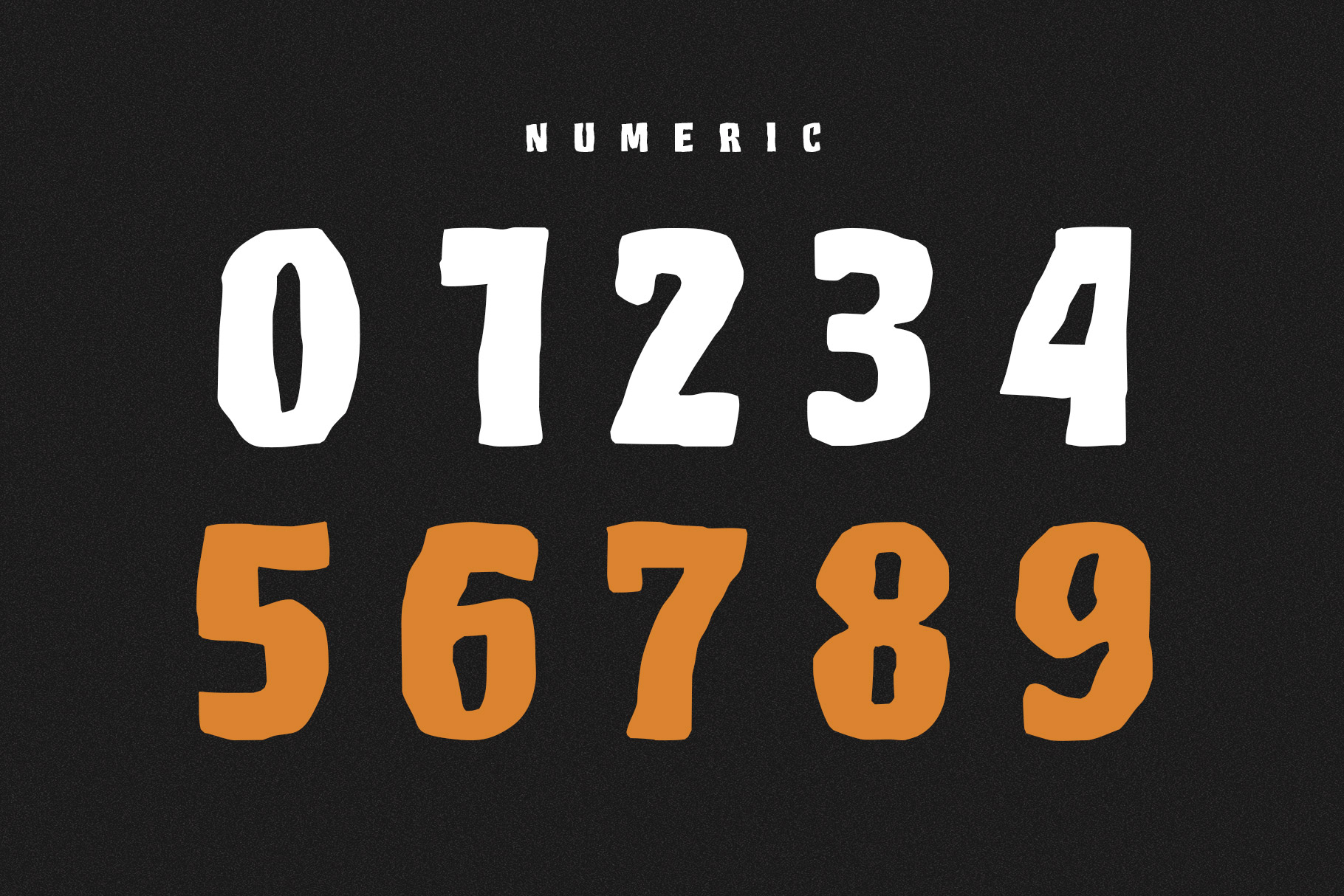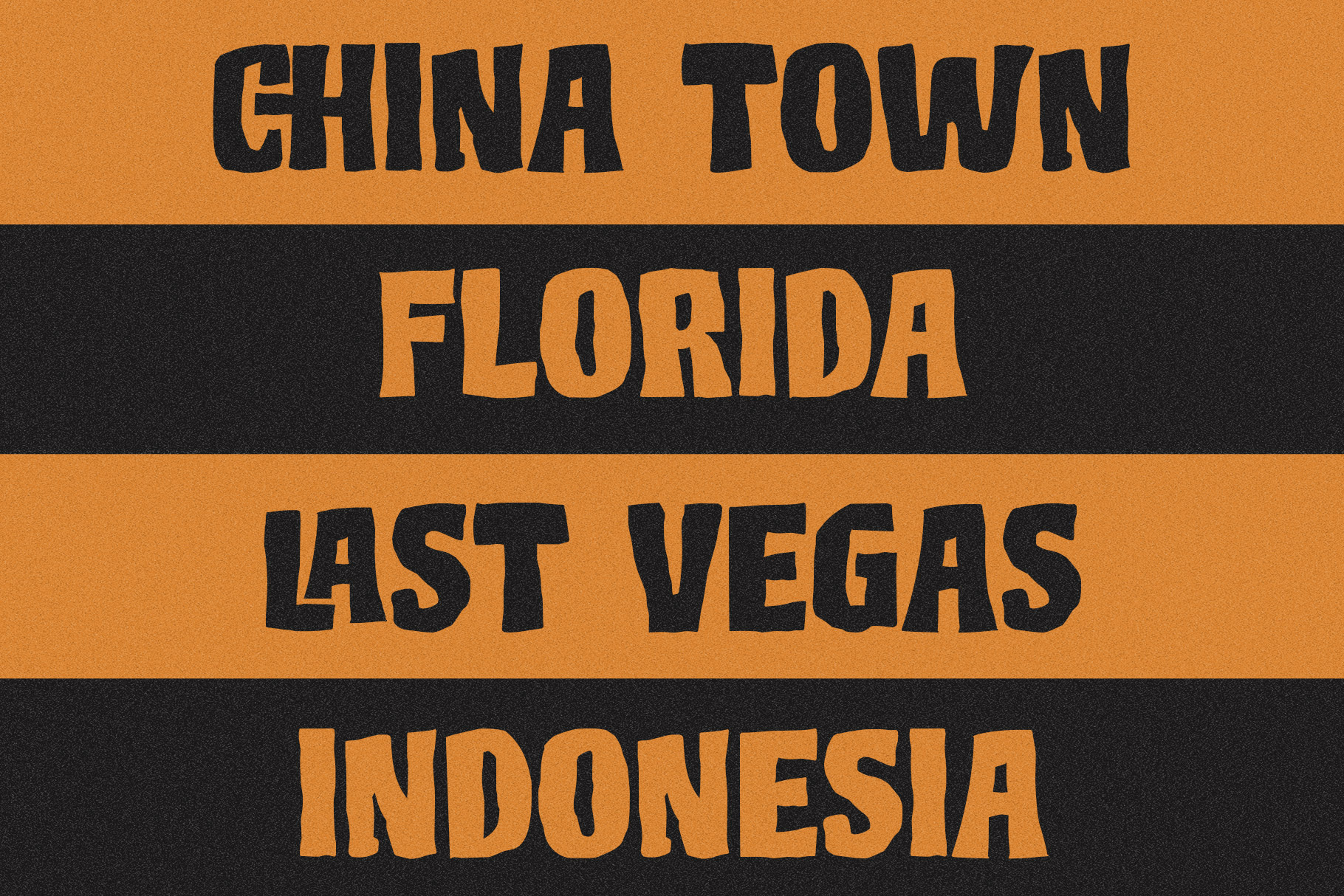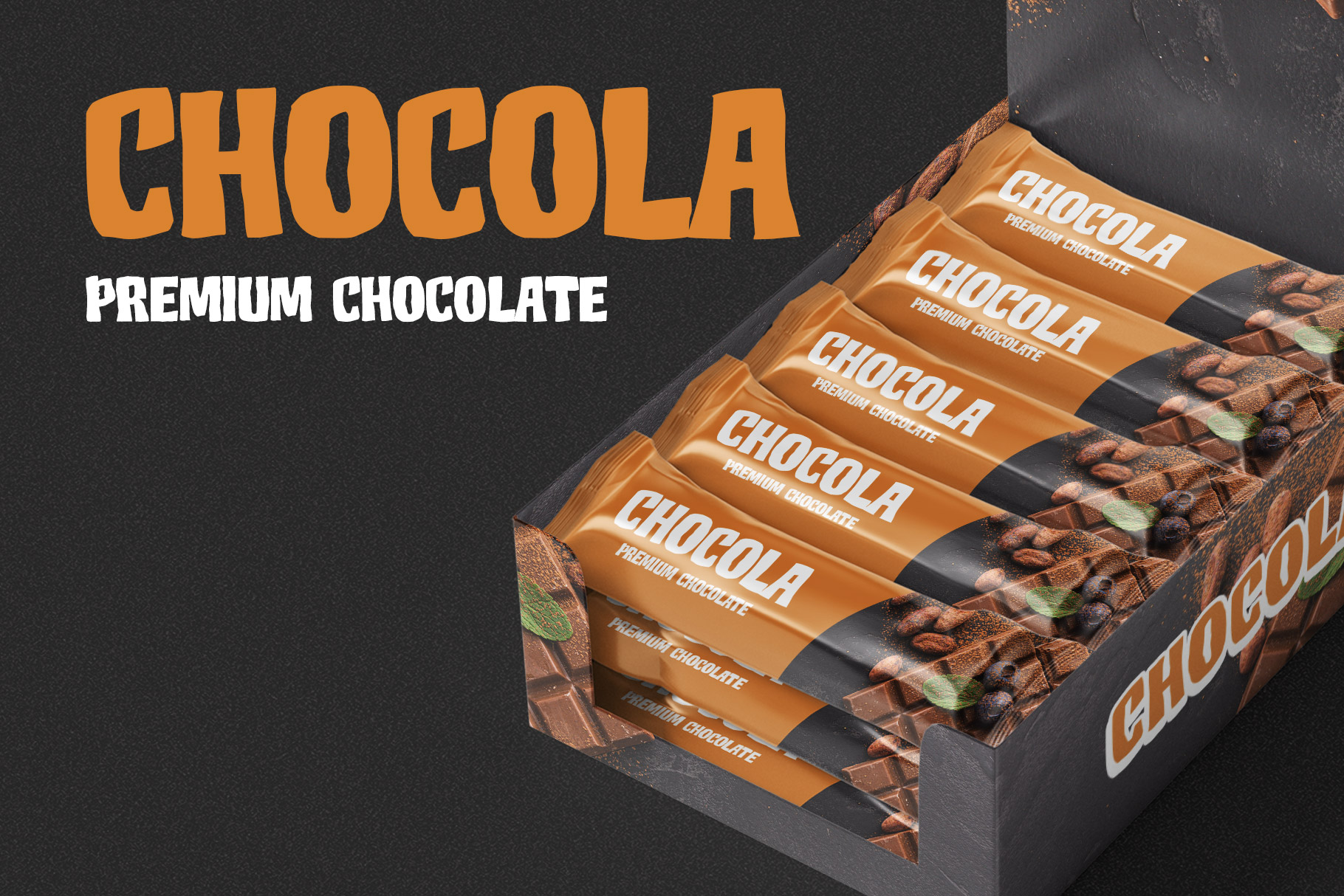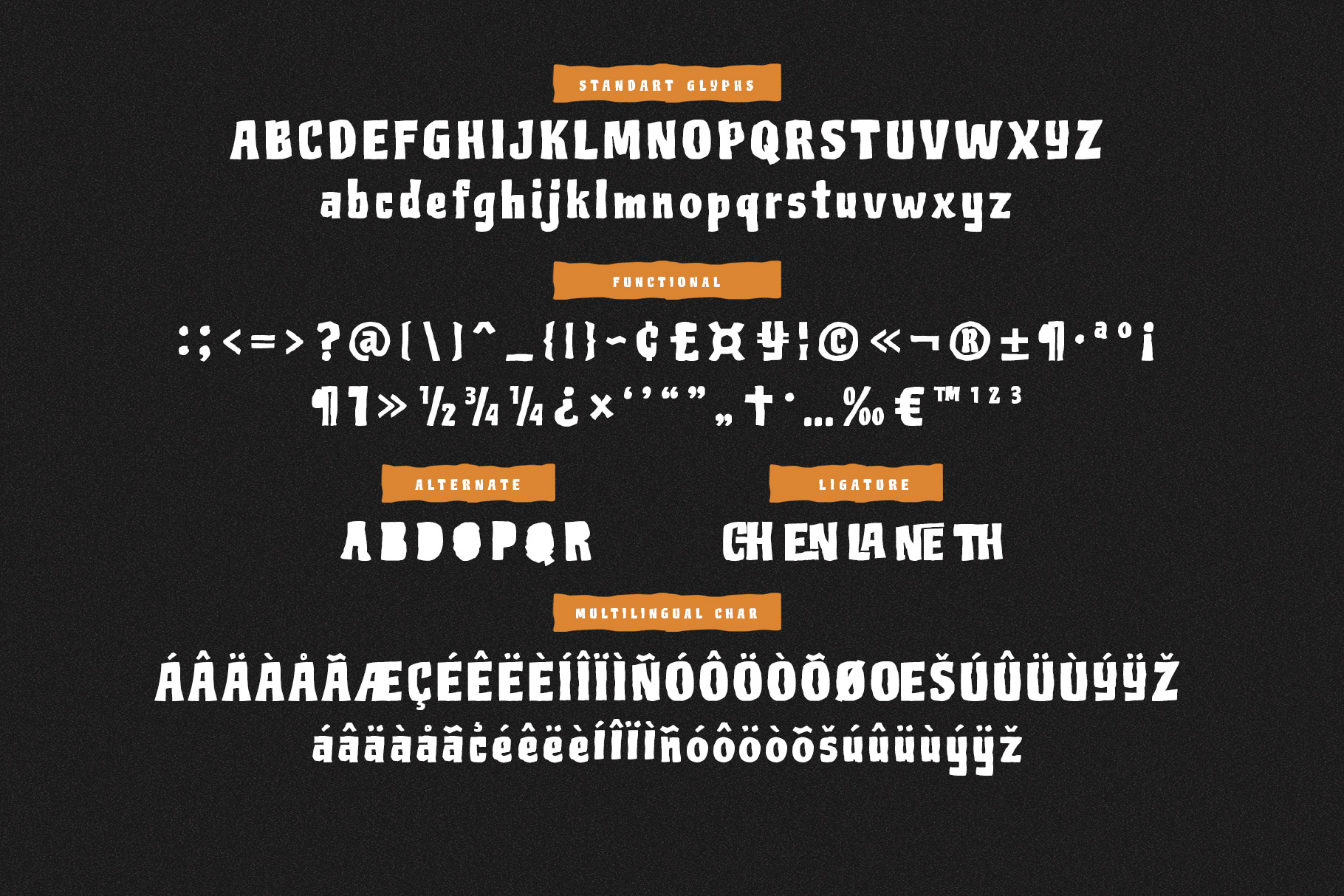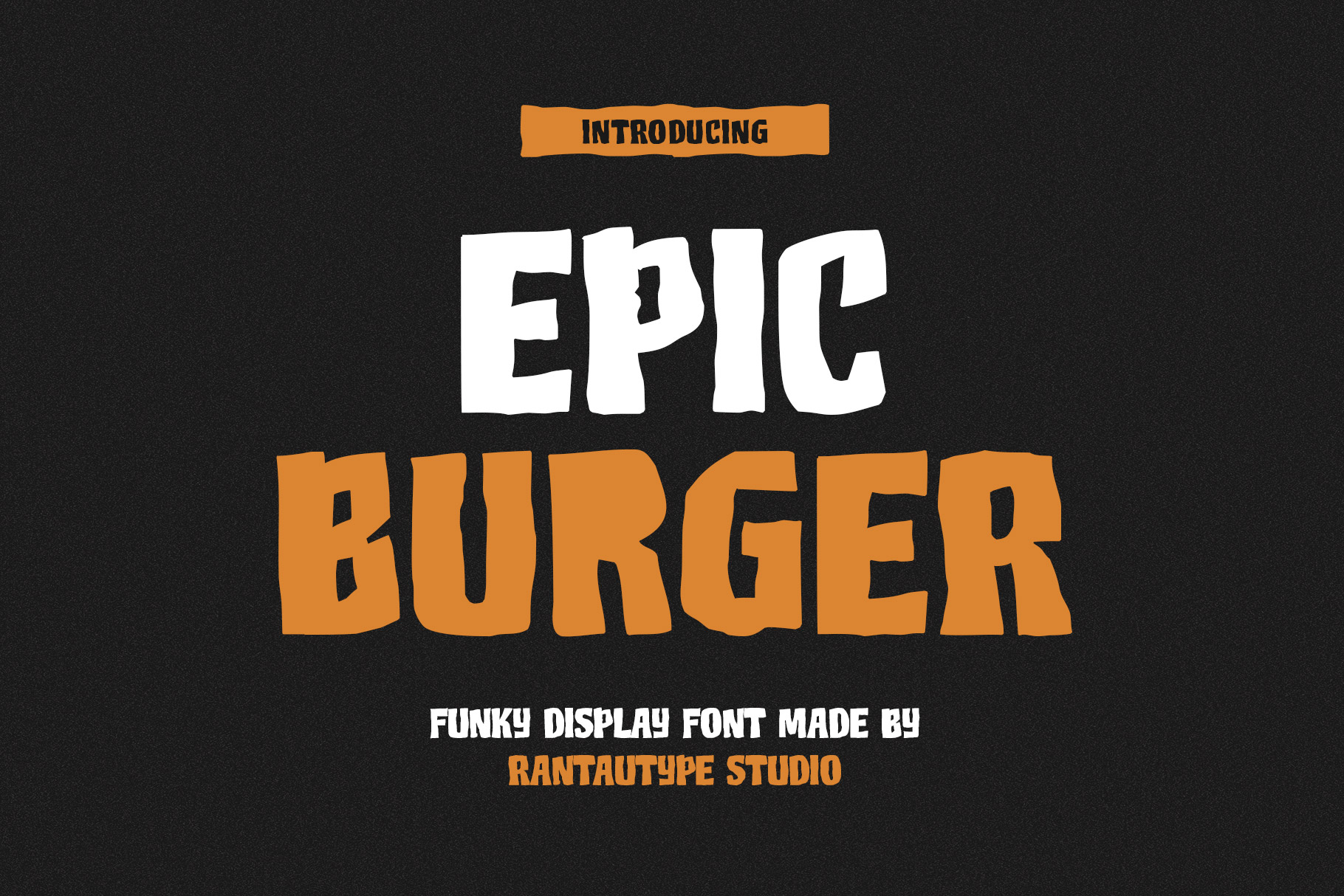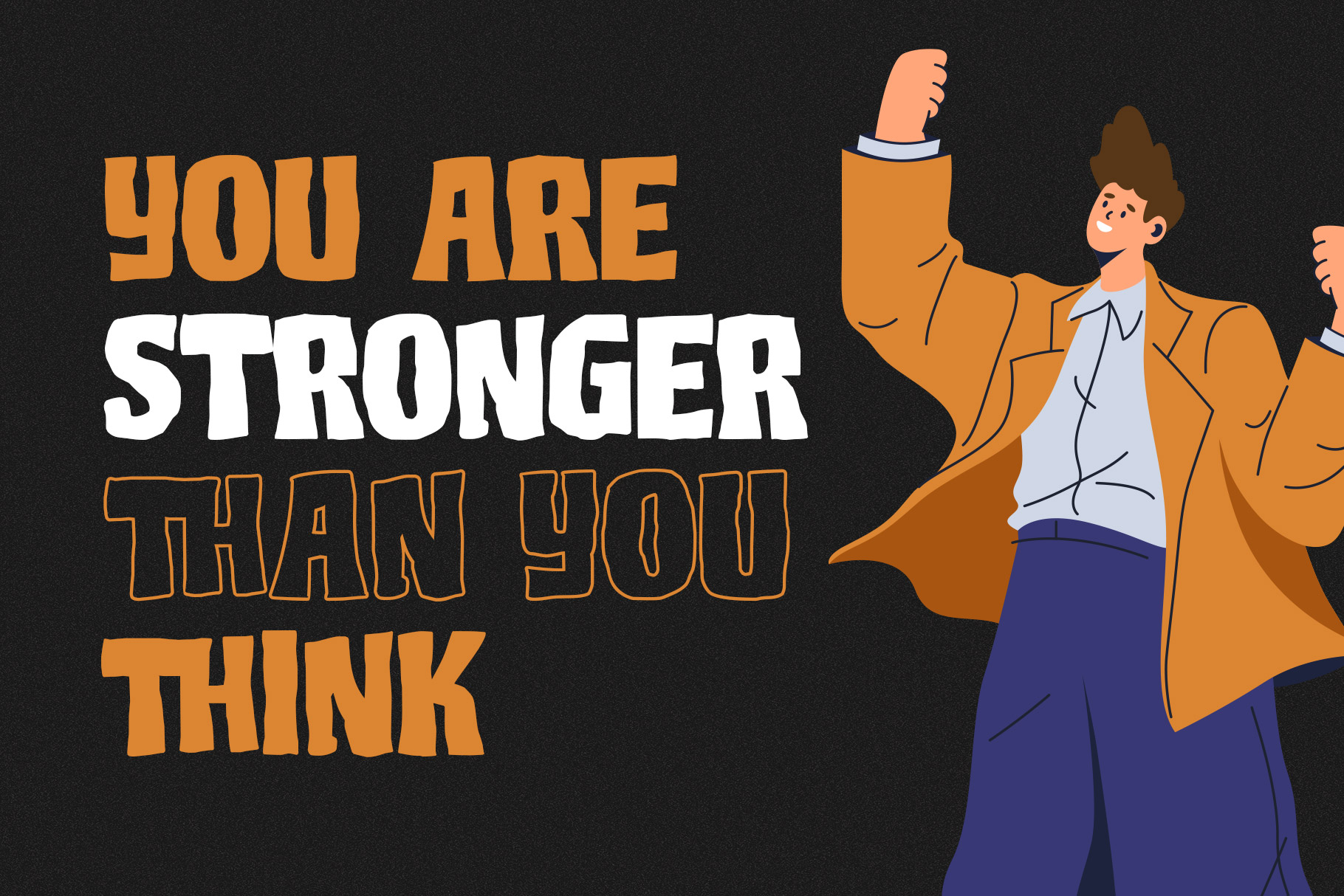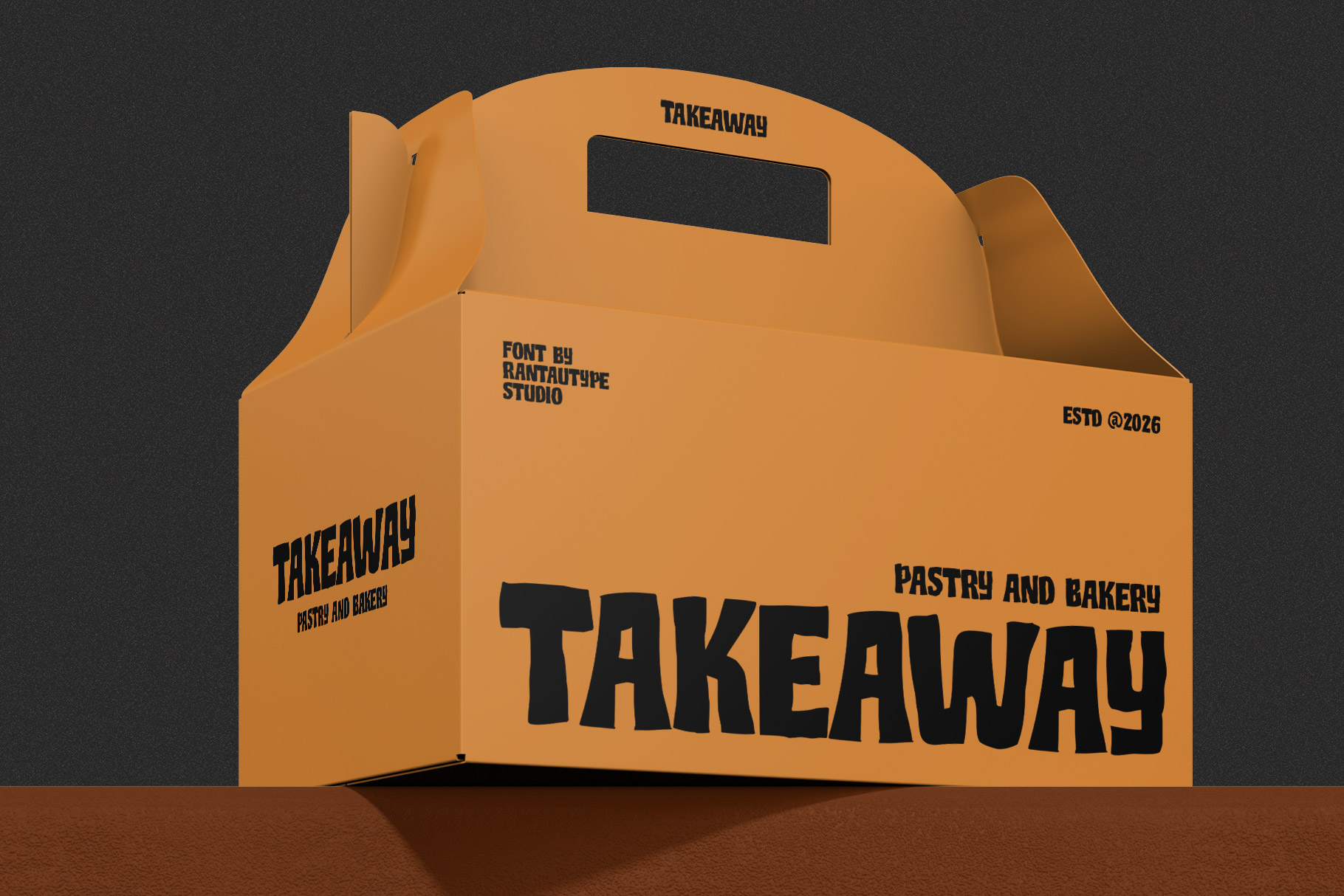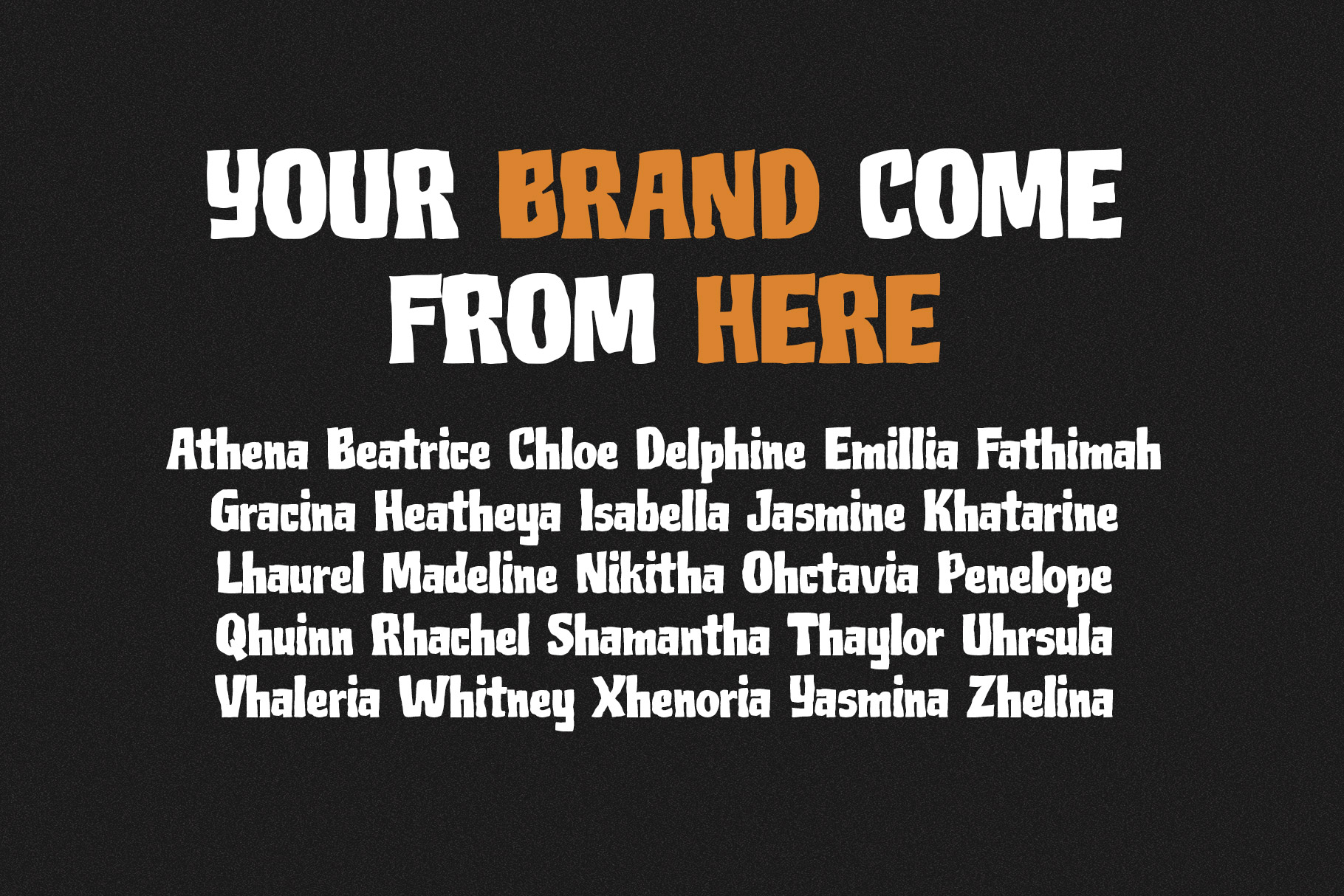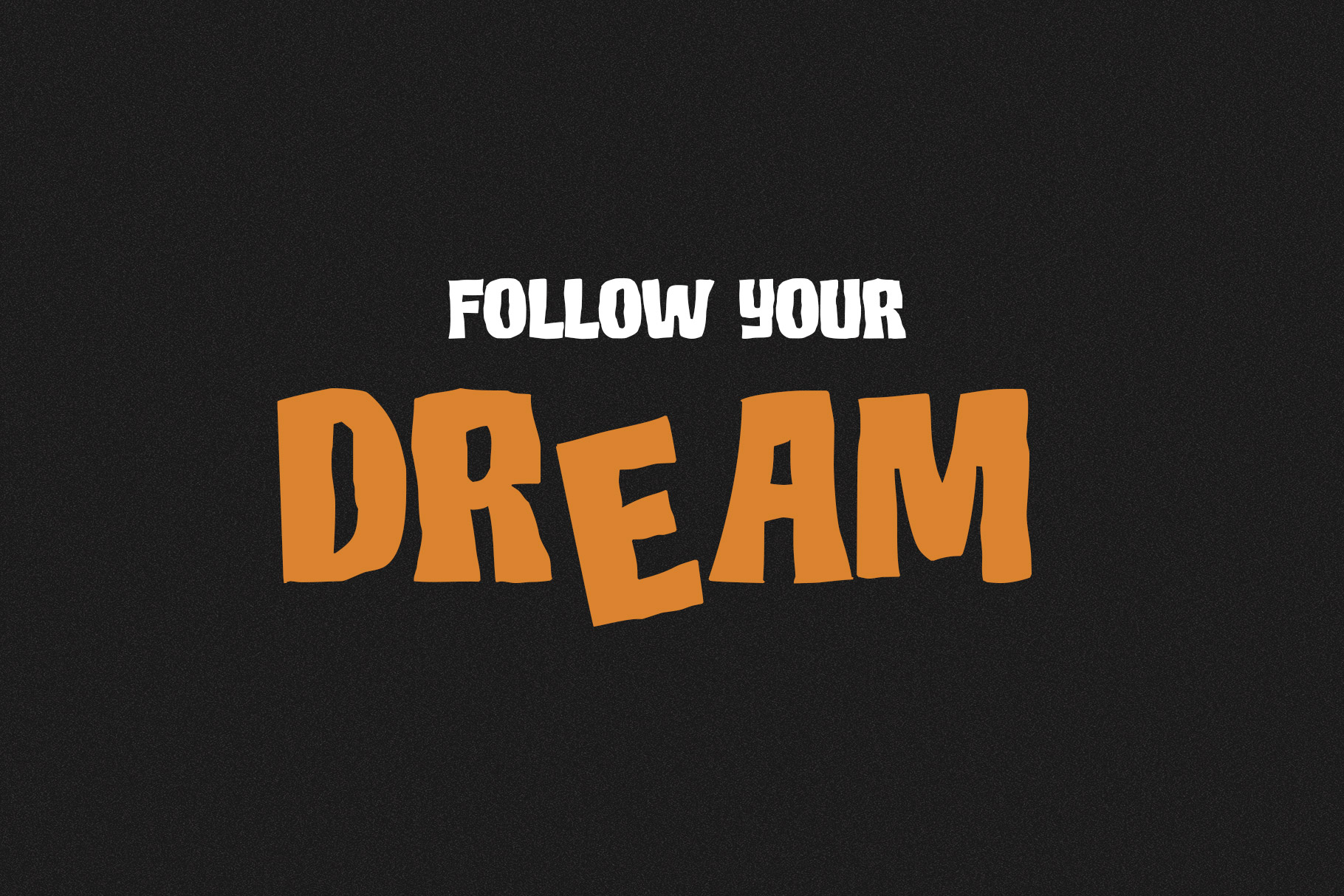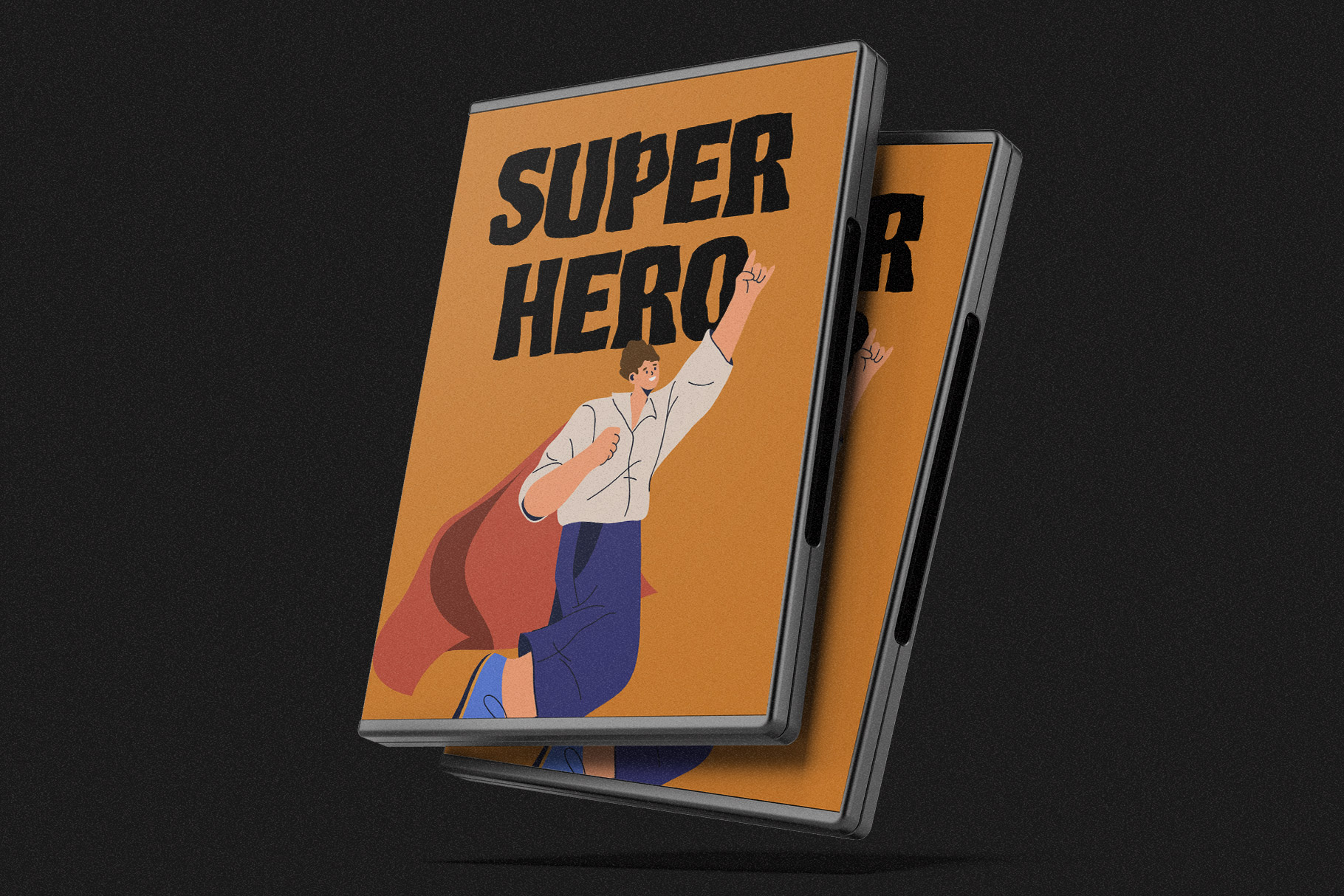
Epic Burger Display Font
Epic burger is funky display font embrace strong and confident character. Epic burger is a perfectly choice for any creative endeavor, creating, modern, lifestyle design such as logotype, title, cover, branding, invitations, wedding designs, display and magazine, social media posts, advertisements, printed quotes, product packaging, corporate brand, product designs, labels, photography, watermarks, special events and any other project with modern touch.